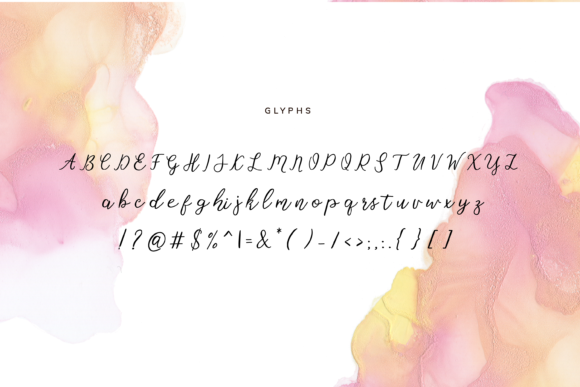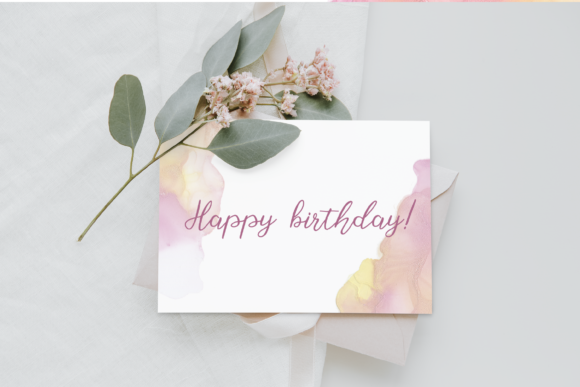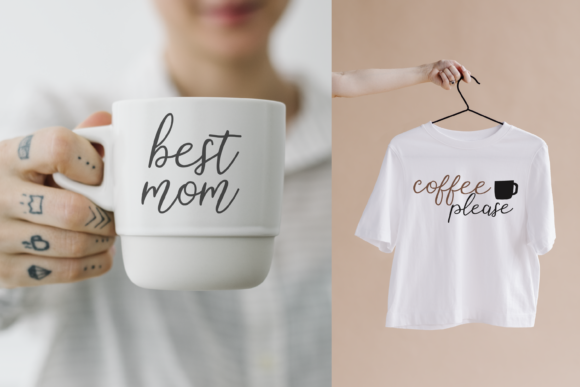
Summer Night Font
About Summer Night Font
Summer Night is a thin lettered and graceful script font. Fall for its ravishing style and use it to create gorgeous wedding invitations, beautiful stationary art, eye-catching social media posts, and much more! Summer Night is PUA encoded which means you can access all of the glyphs and swashes with ease!